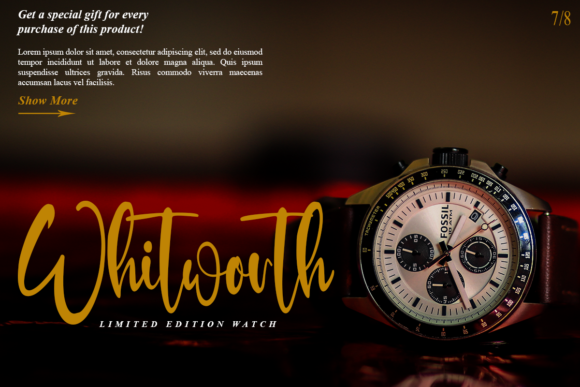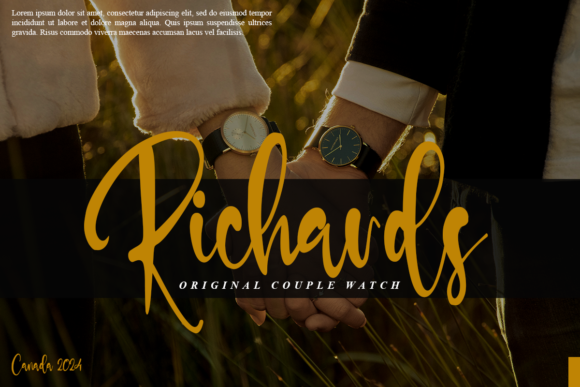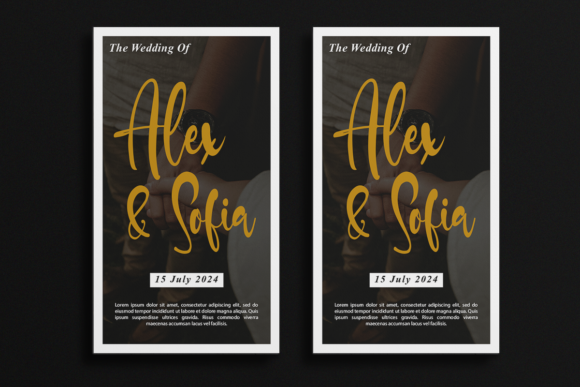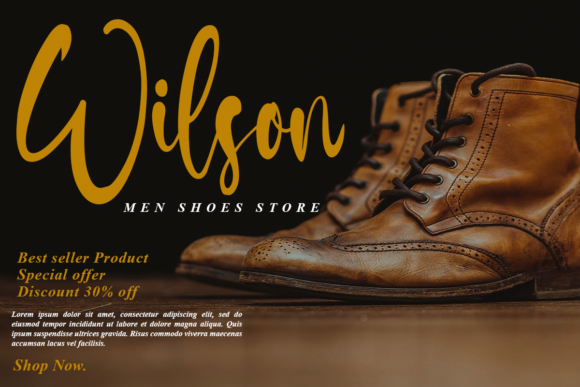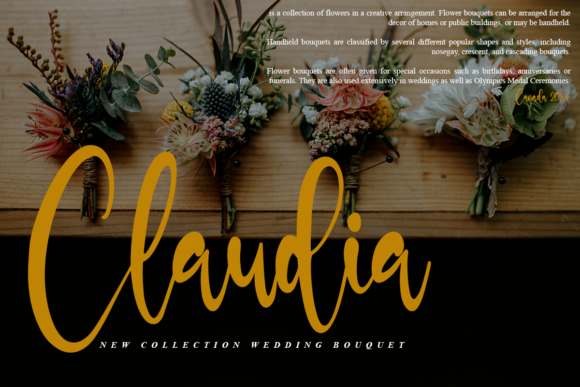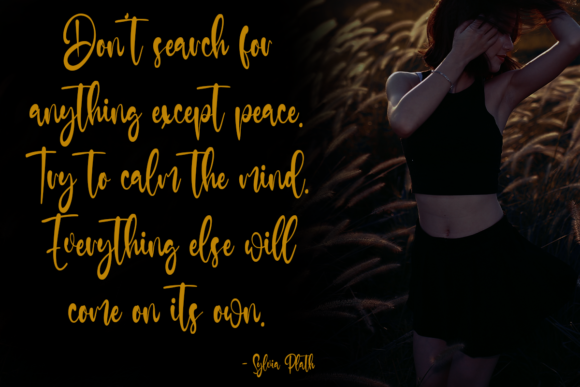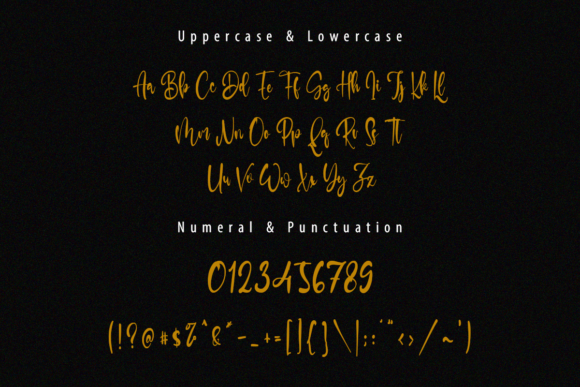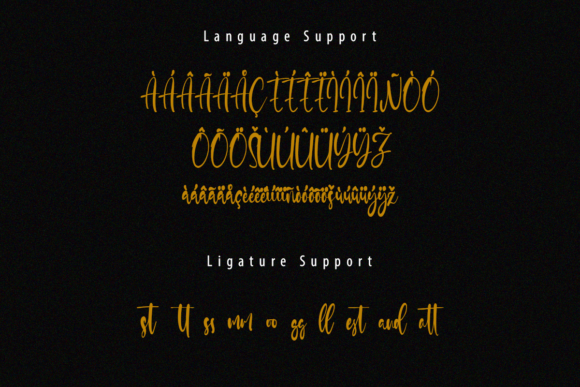
About Jackson Miller Font
Jackson Miller is a stylish and incredibly elegant script font. It looks stunning on wedding invitations, thank you cards, quotes, greeting cards, logos, business cards and every other design which needs a customized touch.